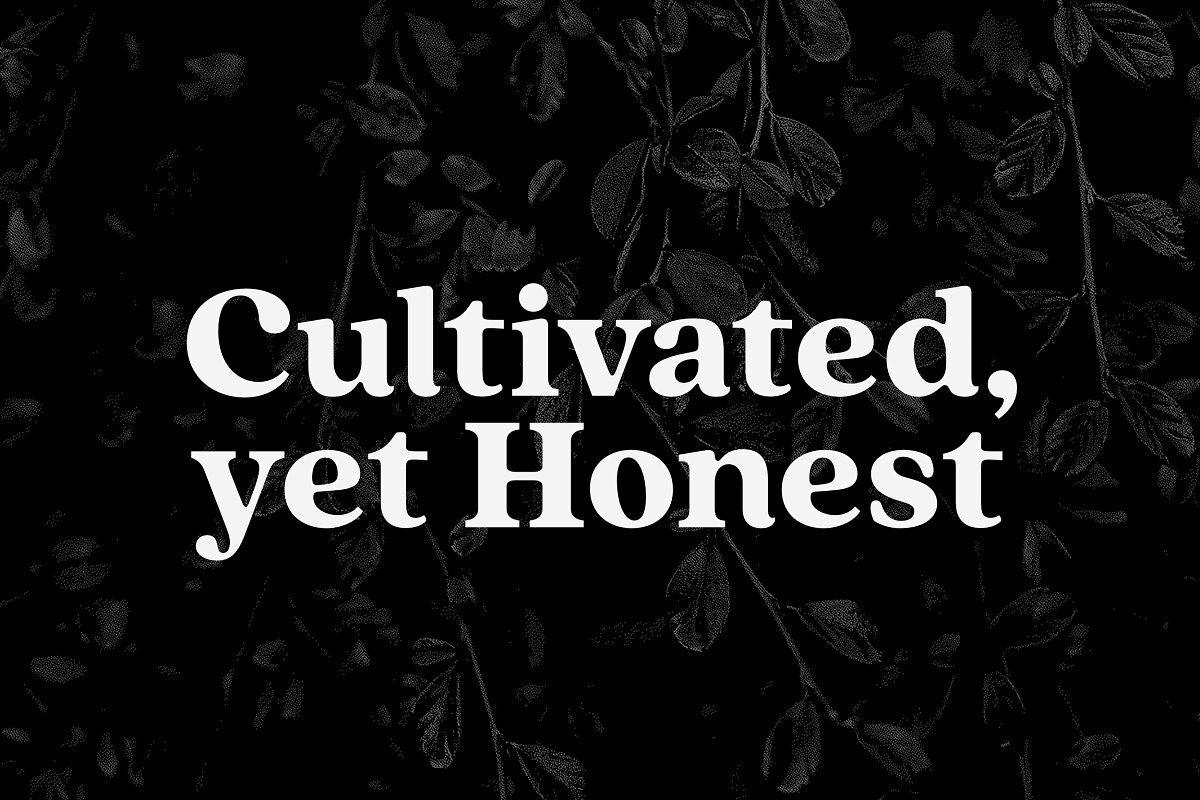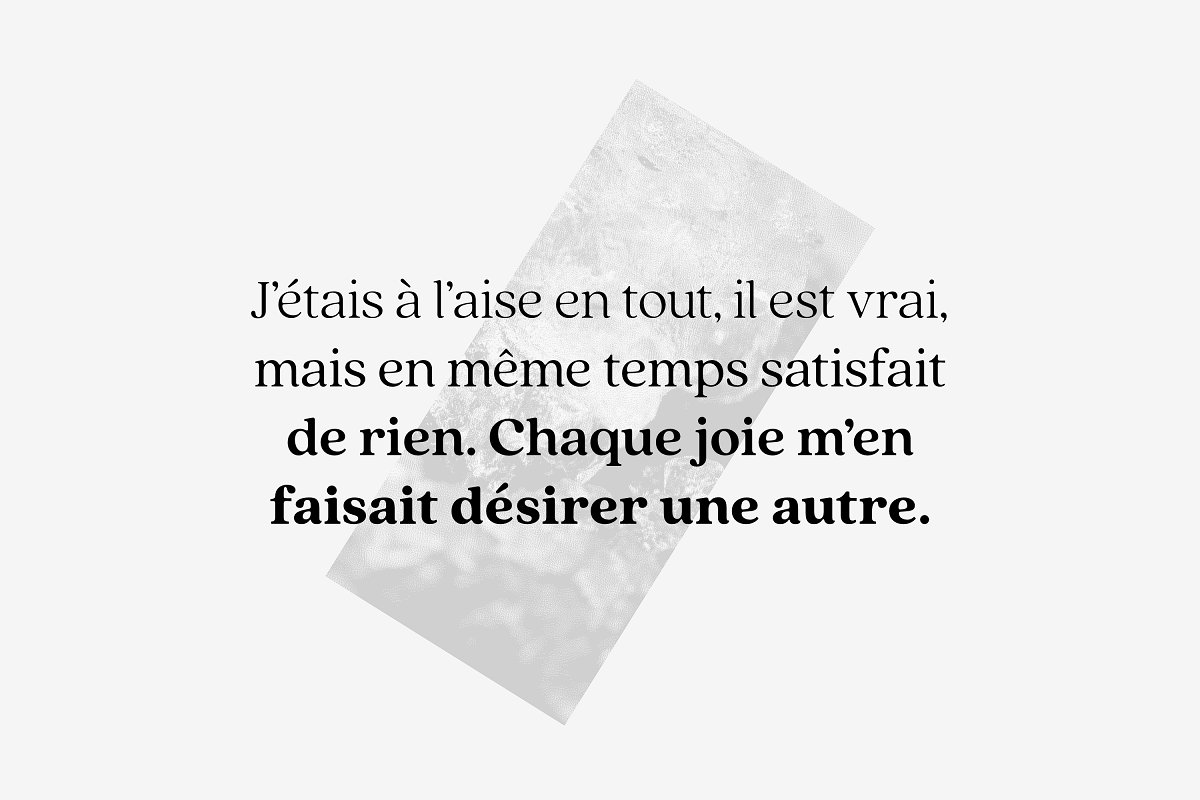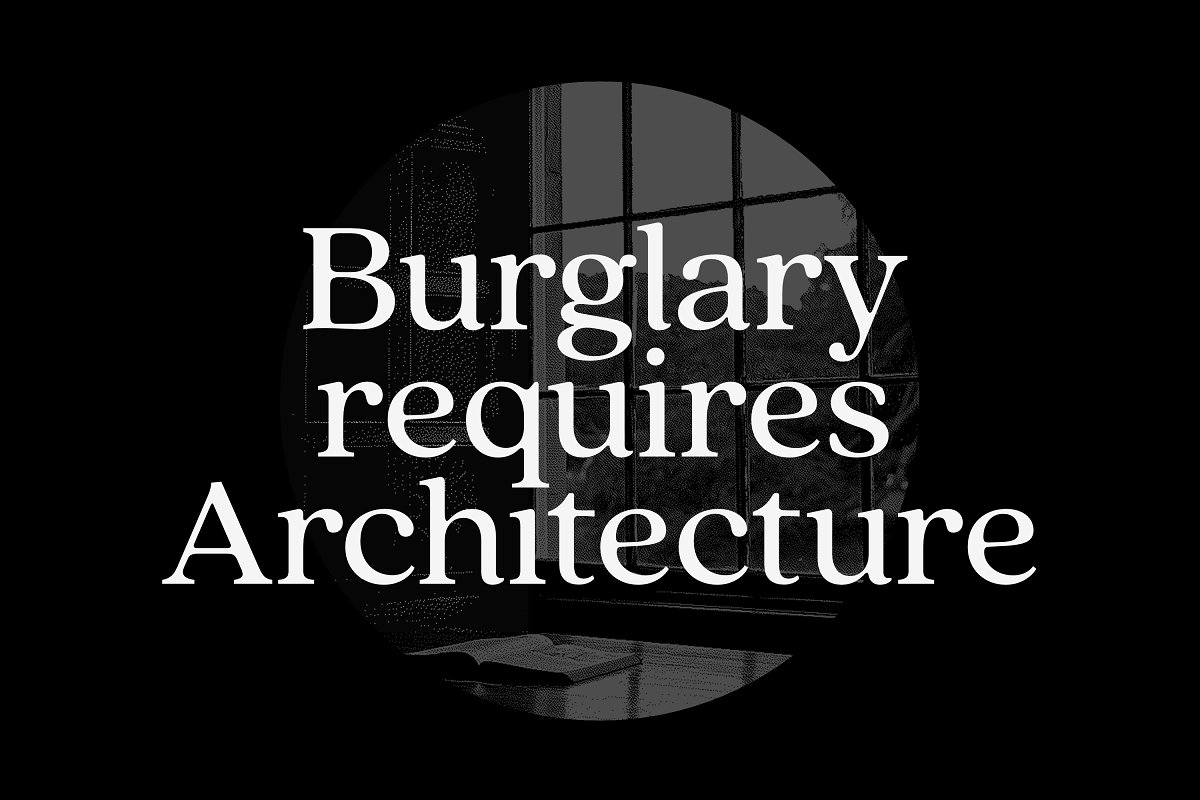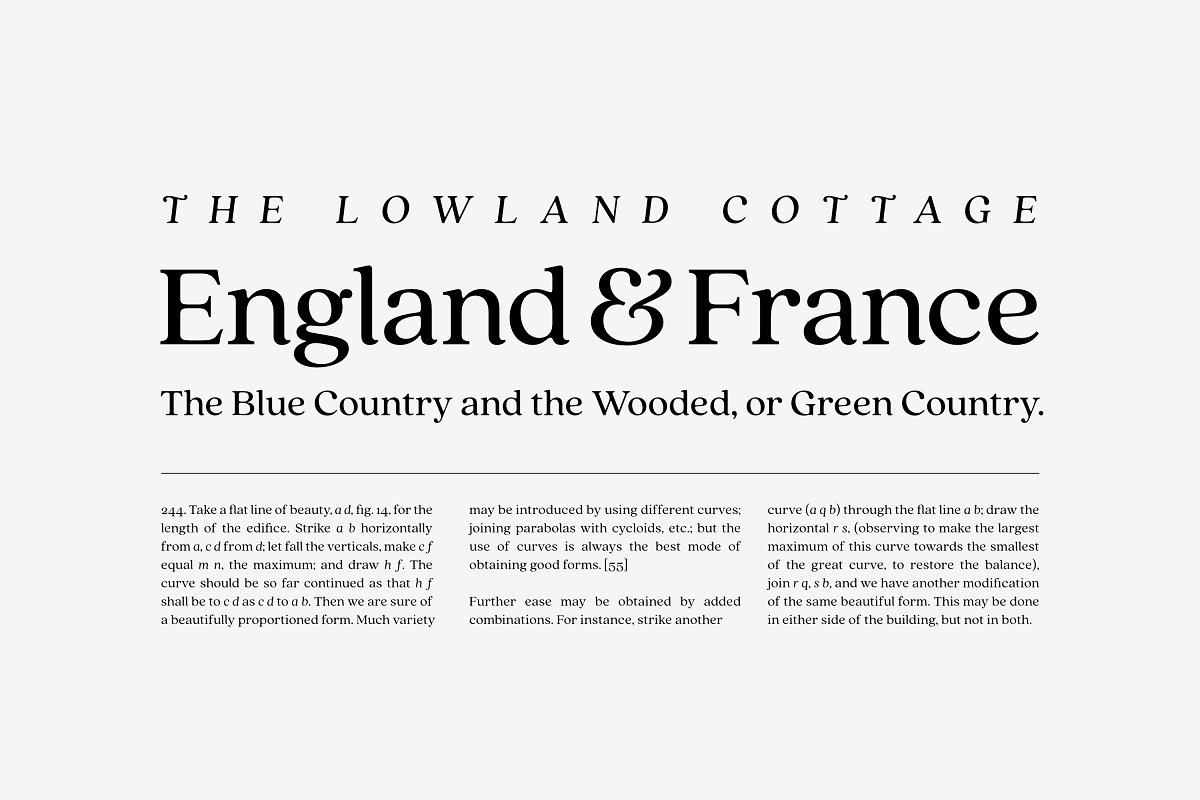
About the Quincy CF vintage serif family Font
Quincy© CF’s warm letterforms and medium contrast give any text a smooth, flowing motion, Small variations and human touches add charm, with Quincy’s boldest weights especially strong as large and medium display type, Recently updated to version 4, 3, Quincy now has eight weights – up from five, Every letter has been thoughtfully refined and rebalanced, kerning and language support improved, and overall appearance enhanced with a smoother, flowing, unified new look
Eight weights and italicsOpenType featuresLatin and Cyrillic multilingual support, including VietnameseLong term support, free features and bug fixes